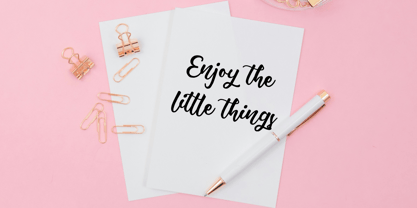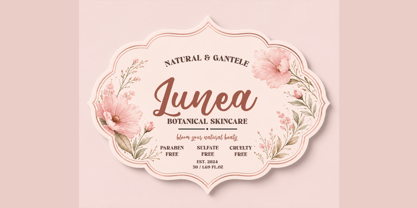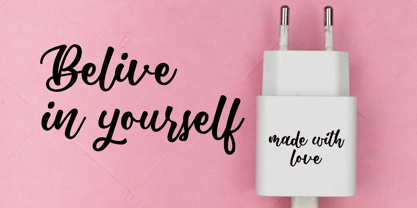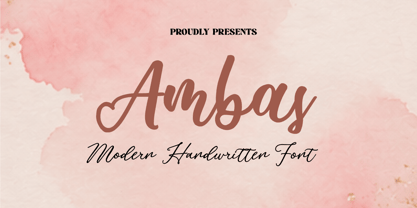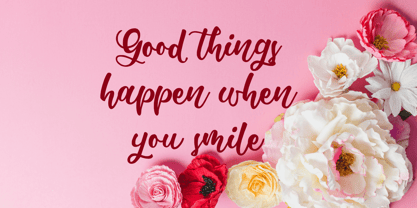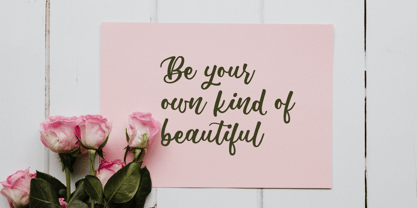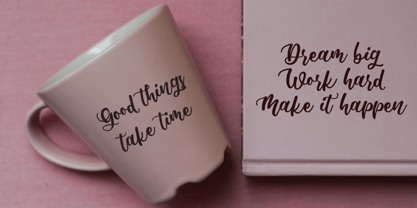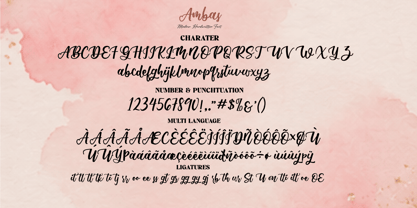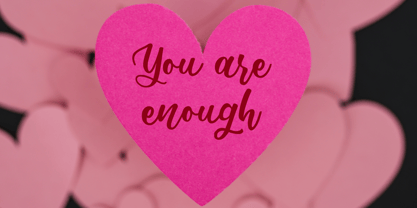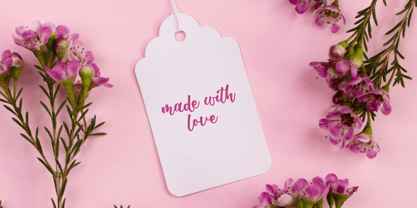
Ambas
La famille de polices Ambas a été conçue par Ta Siyo et publiée par Letternesia studio. Ambas contient 1 styles. En savoir plus sur cette famille
Ambas is a refined handwritten font crafted to bring a sense of elegance, warmth, and authentic personality to modern creative projects. Featuring smooth, natural letterforms and a beautifully expressive rhythm, Ambas captures the charm of genuine handwriting while maintaining a polished and professional appearance.
Designed for creatives, brands, and designers who want their typography to feel personal yet sophisticated, Ambas works beautifully across a wide range of applications, including luxury branding, logos, beauty and fashion projects, packaging, invitations, stationery, social media content, editorial designs, and signature-style artwork.
Its graceful handwritten character gives every word a distinctive human touch, making Ambas an excellent choice for projects that need to feel elegant, feminine, stylish, warm, and memorable.
From a sophisticated brand identity to an intimate wedding invitation or an eye-catching social media campaign, Ambas adds personality and effortless elegance to every composition.